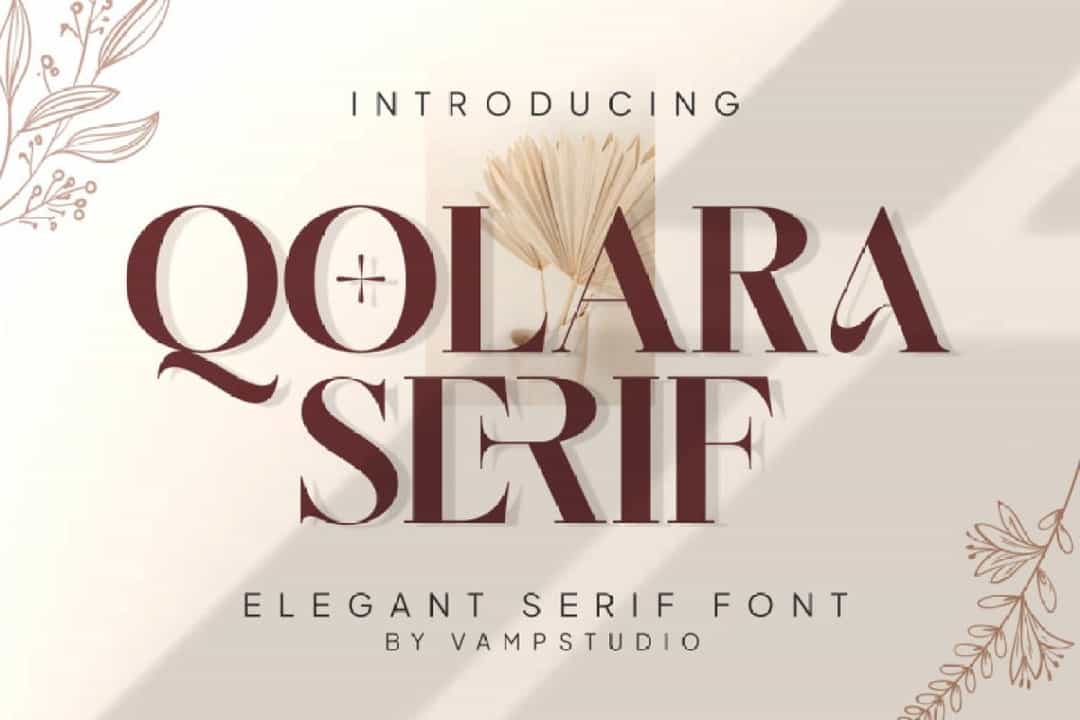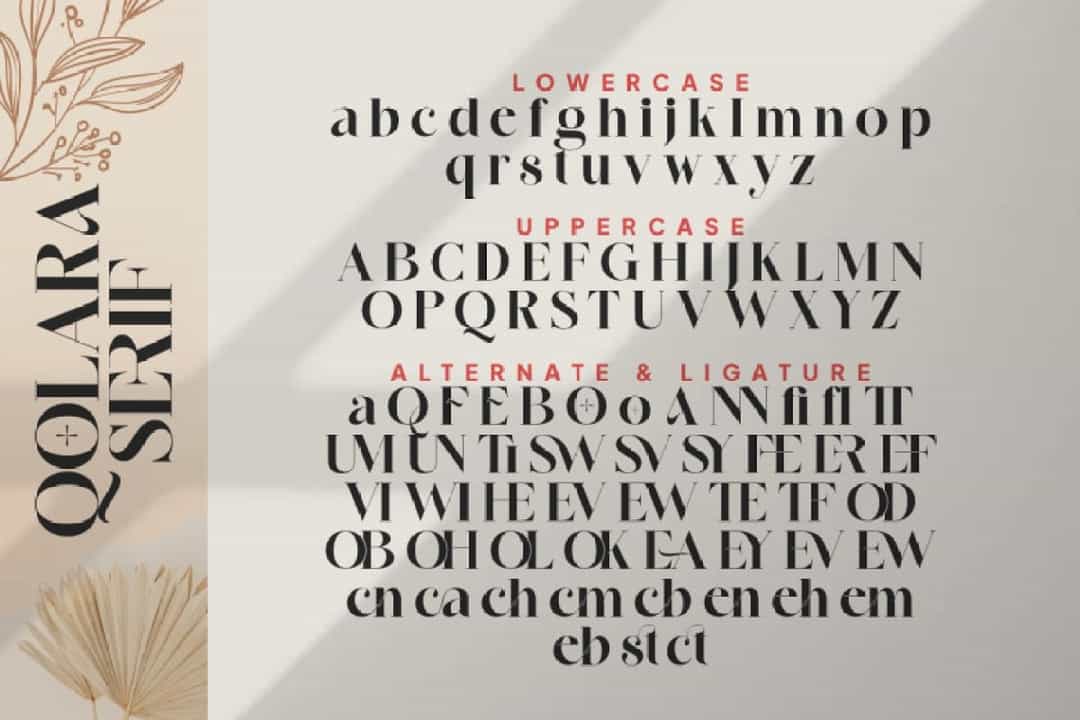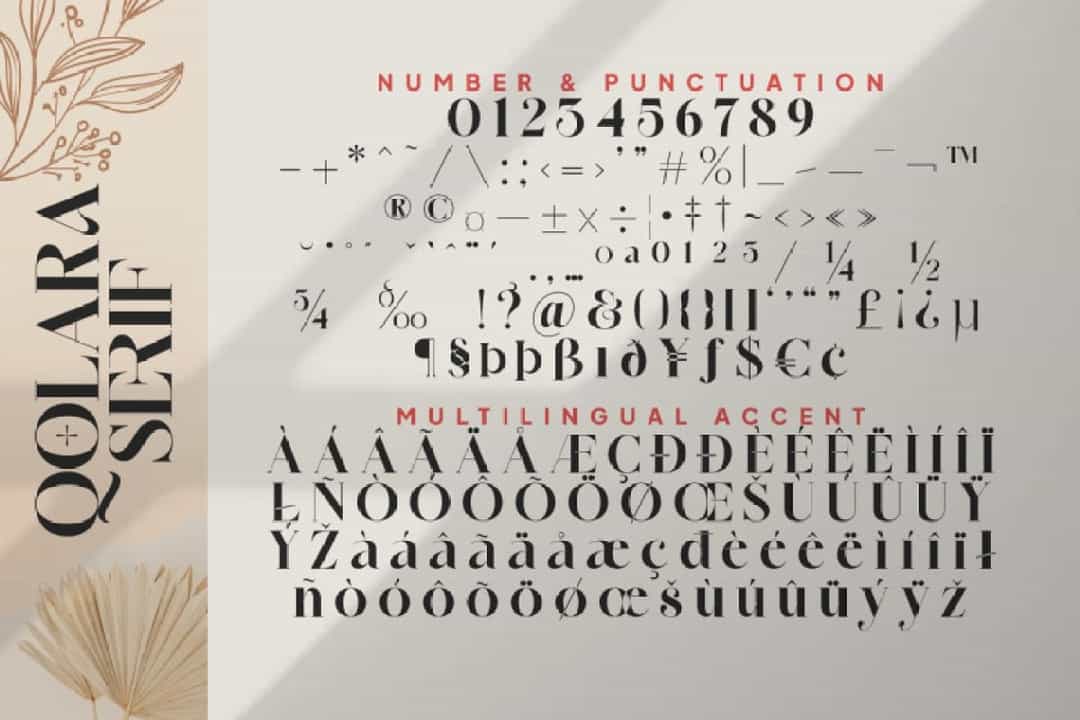
Qolara Serif is an elegant and fashionable serif font designed by skilled hands for use in modern projects. This font’s modern elegance, clean look and sophisticated appearance makes it the ideal fit for larger-scale endeavors such as logo design, wedding invitations or social media posts.